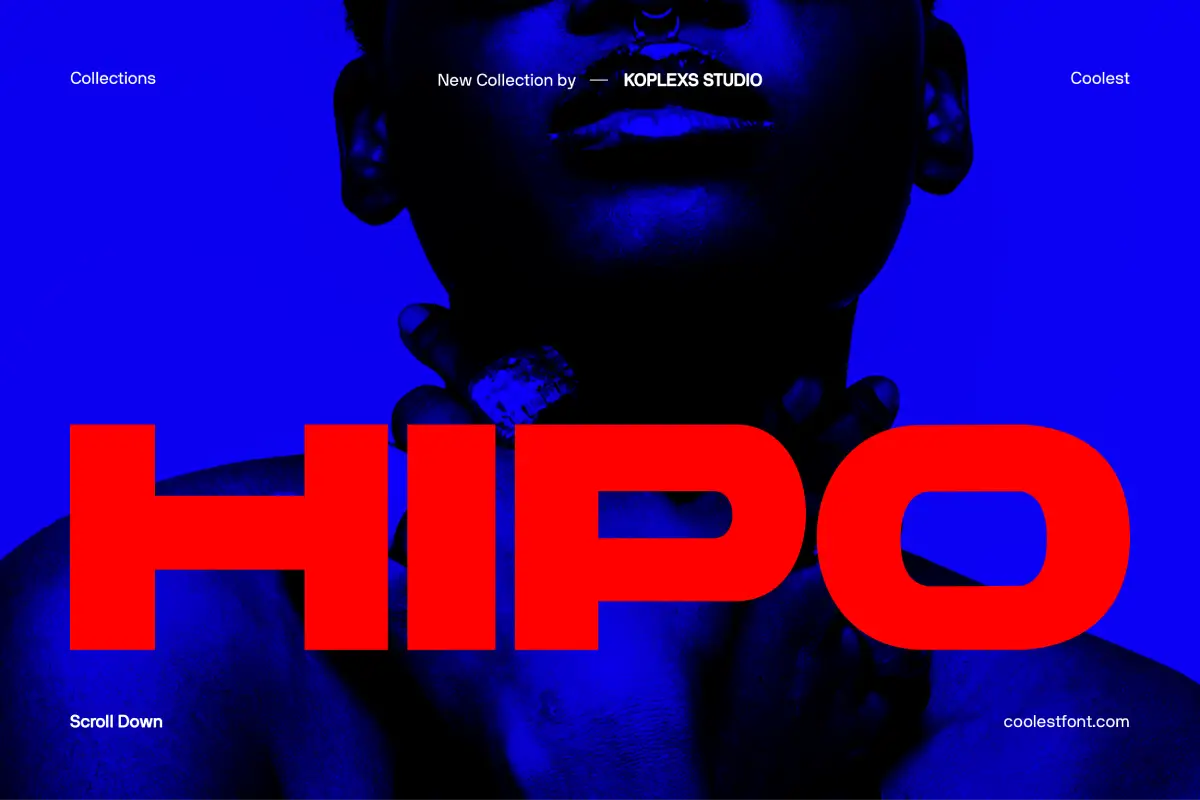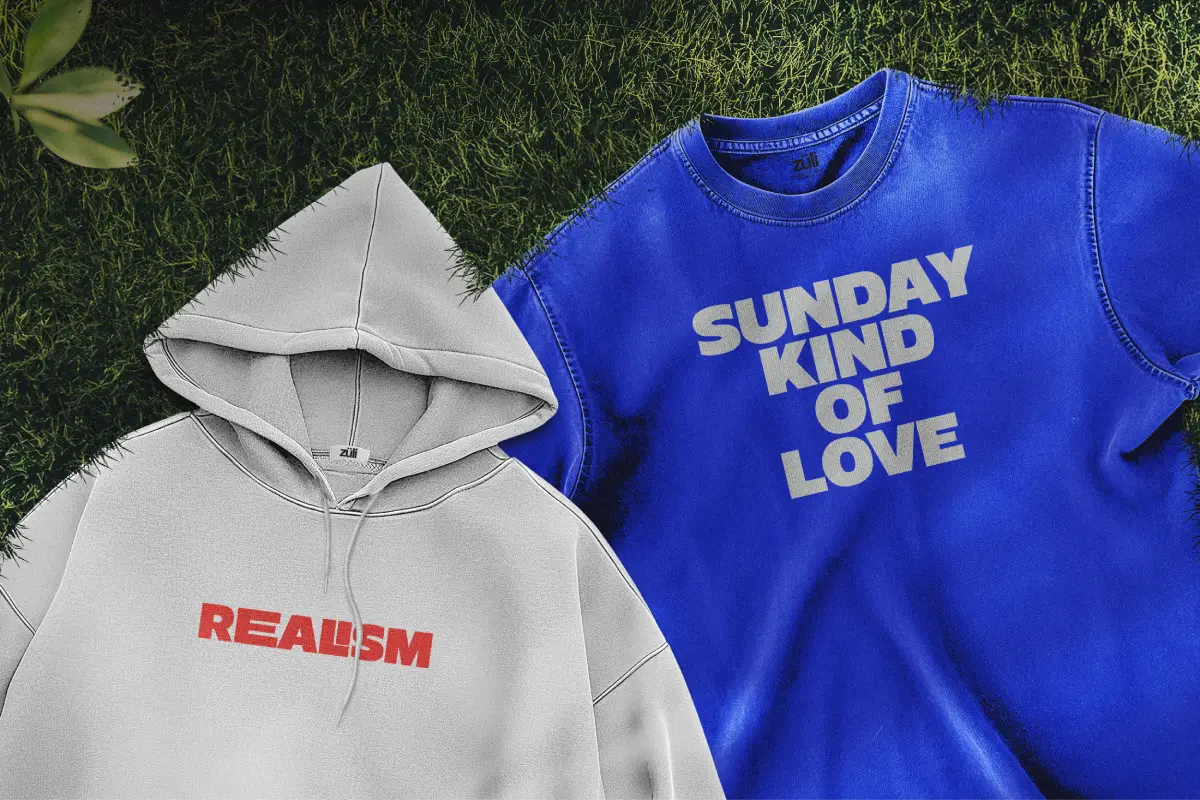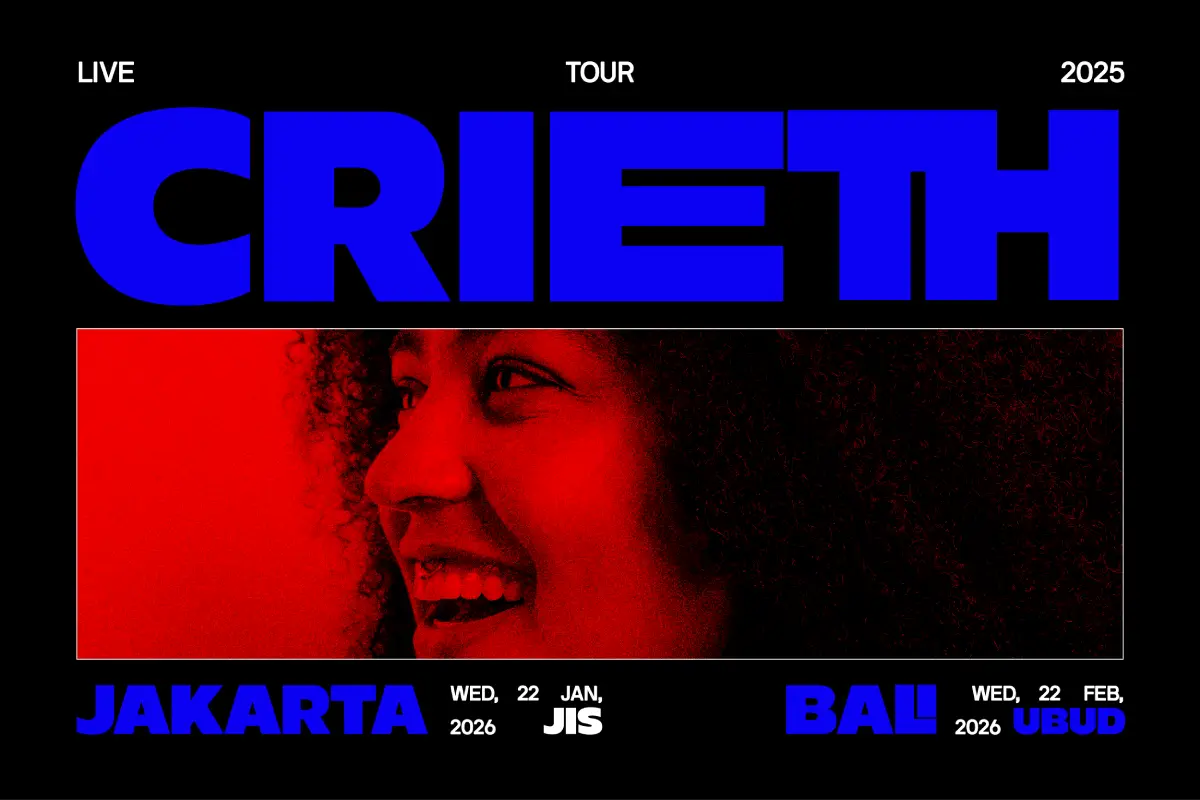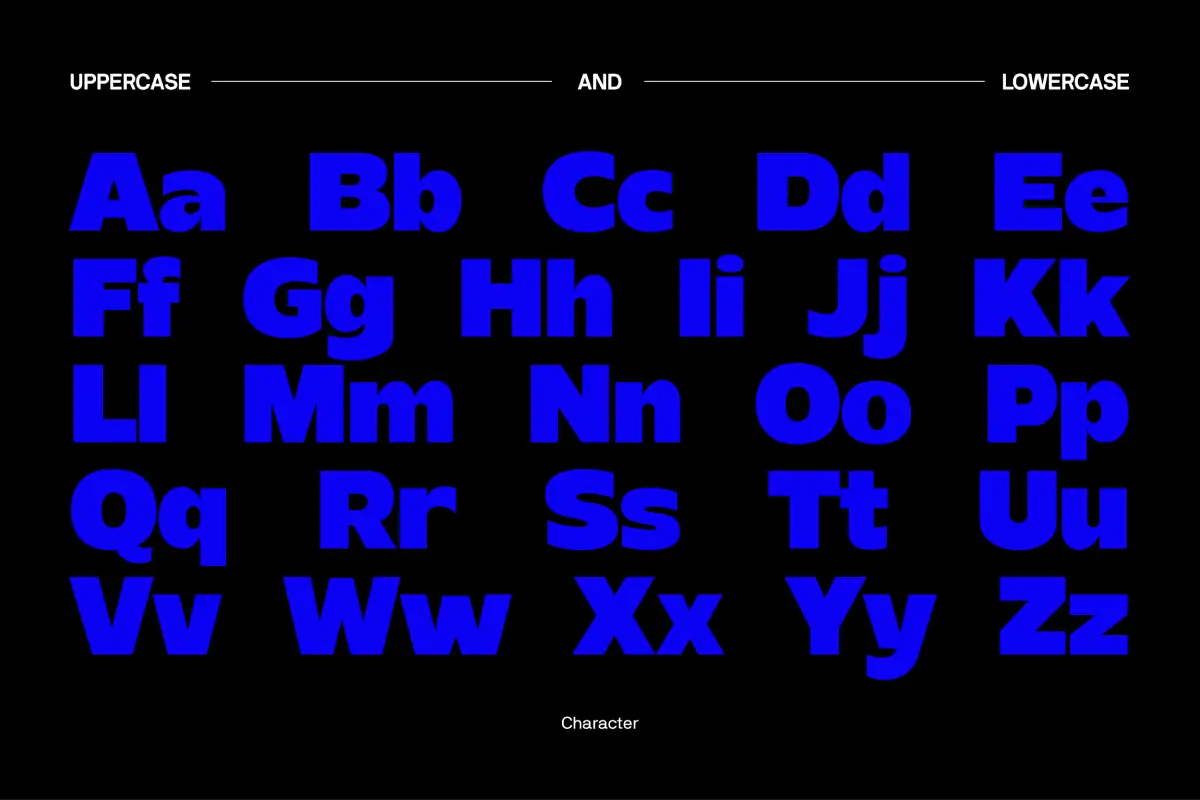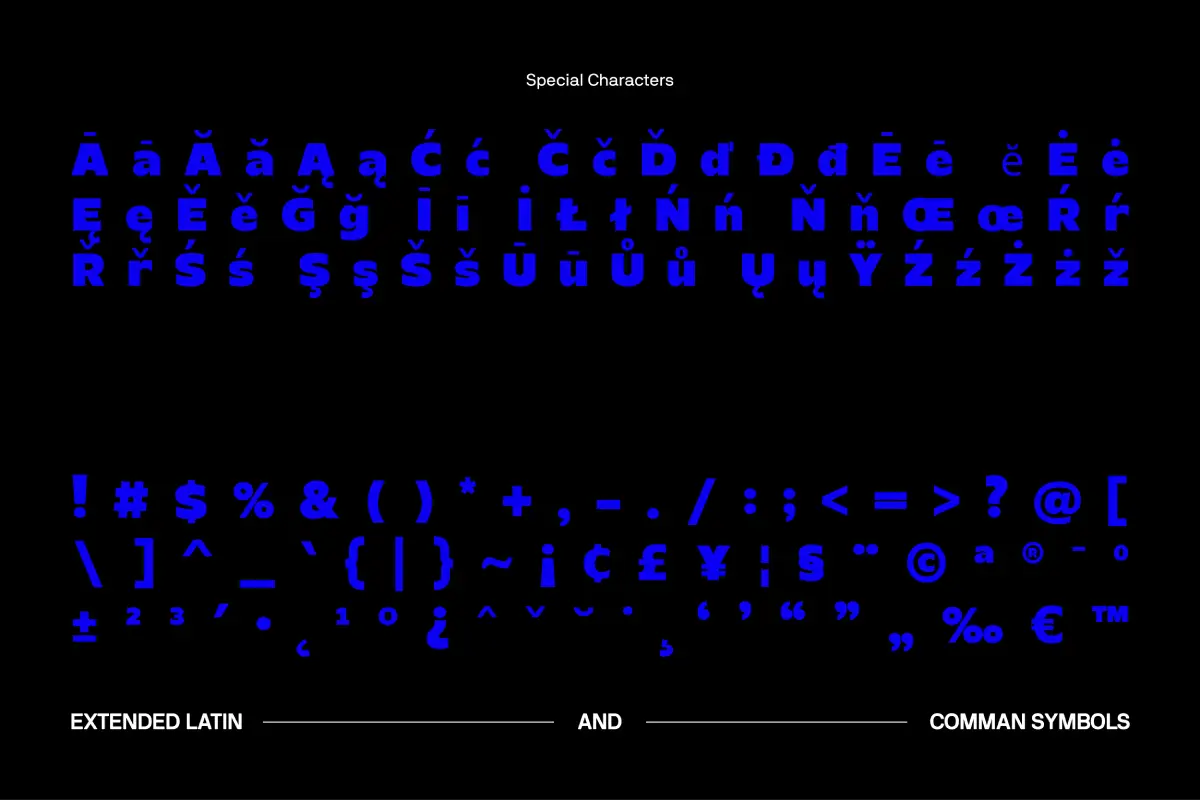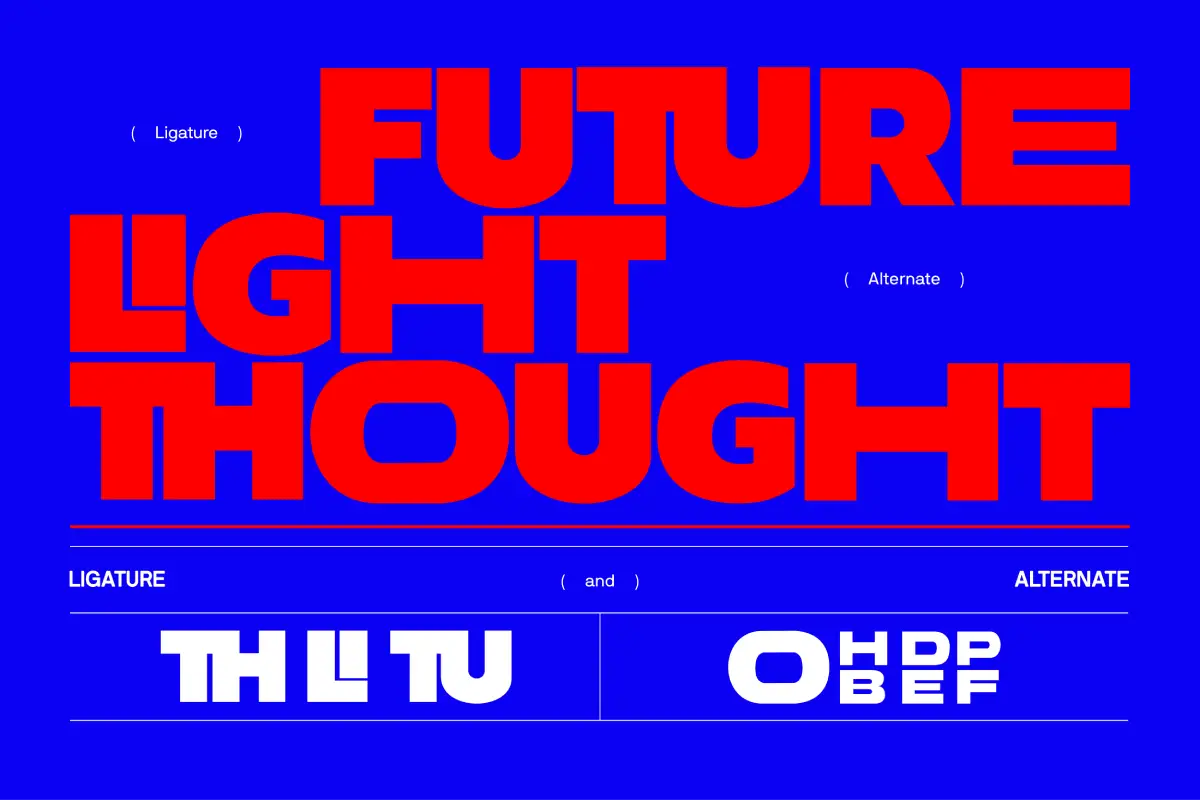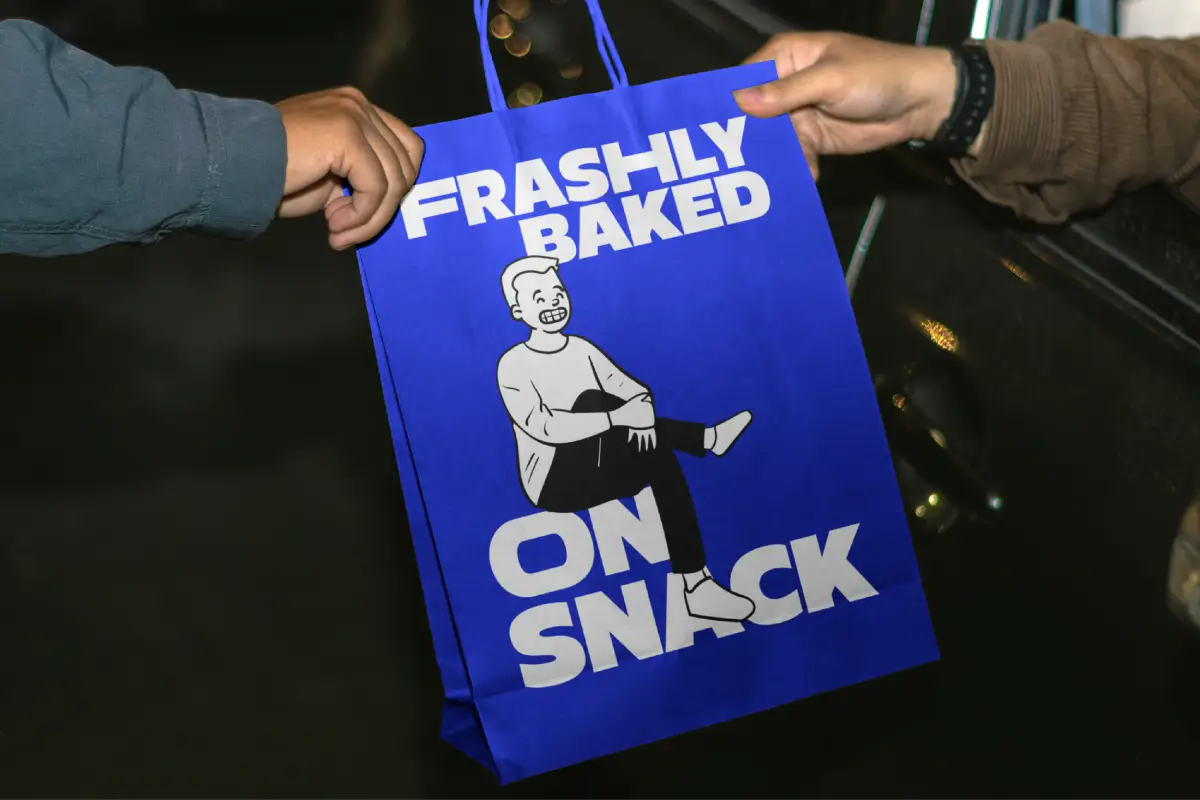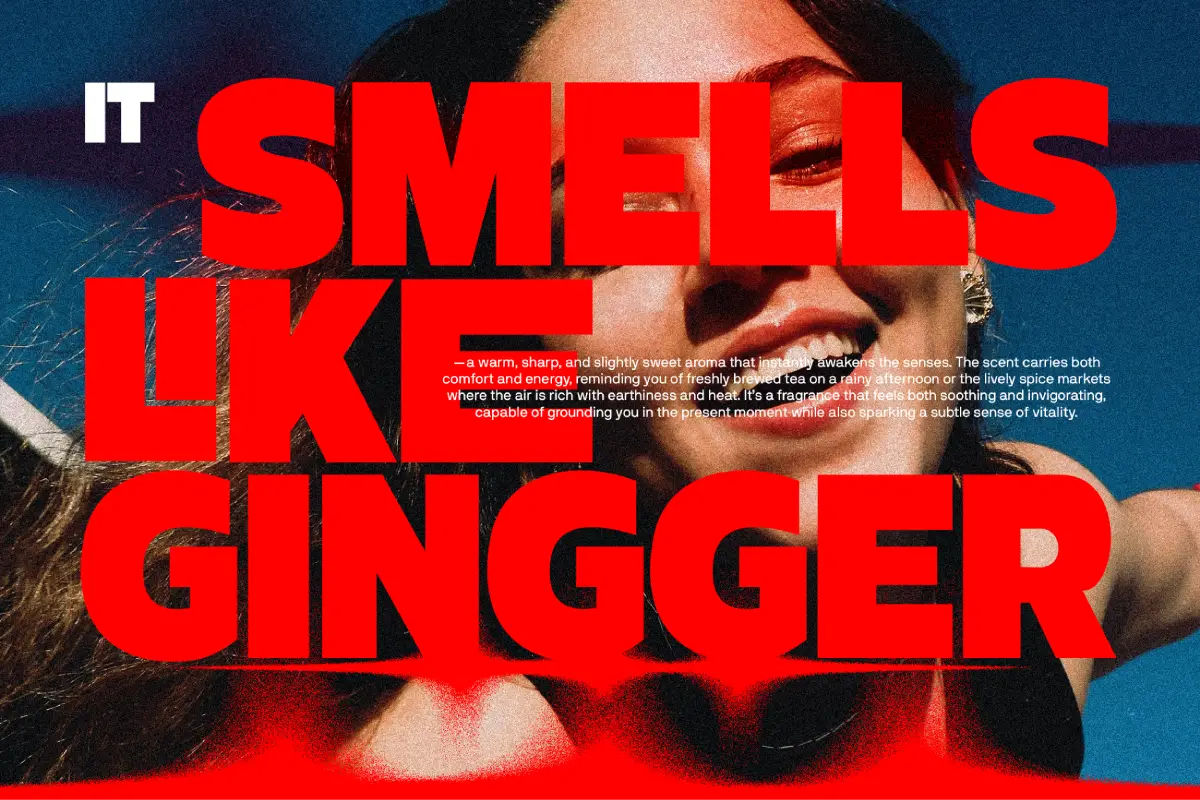
Hipo Font – Bold Sans Serif Branding Font
Hipo Font is a bold sans serif font made for impactful design. With its strong shapes and versatile style, it’s the perfect branding font for modern projects. As part of the coolest fonts collection, Hipo balances aesthetics and function, working as both an elegant font and a luxury font. Ideal for logos, packaging, editorial layouts, and digital campaigns, this cool font ensures your work looks bold, modern, and unforgettable. Featuring uppercase, lowercase, extended Latin, and special characters, Hipo is the perfect font to elevate every project with clarity and confidence.
Hipo – Modern Bold Font for Logos & Branding
Introducing Hipo Font – a bold font that instantly grabs attention with its striking form. Designed as a sans serif font with strong curves and confident shapes, Hipo is the branding font every modern creator needs.
As part of today’s modern fonts, Hipo brings together style and function. Its geometric design reflects the energy of aesthetic fonts, while maintaining a clean and versatile structure. This cool font works equally well as a logo font or as display typography for editorial layouts, fashion branding, and digital campaigns.
Hipo Font elevates design with its elegant font details and luxury font presence. Perfect for bold headlines, packaging, merchandise, or social media content, it adds authority and style without losing clarity. It’s one of the coolest fonts available, built to give your project a timeless yet contemporary look.
🌟HIPO Font Features :
• Bold uppercase & lowercase
• Extended Latin support & special characters
• Strong sans serif font structure
• Perfect font for logos, branding, and packaging
• Works for print, digital, and merchandise
🏆 HIPO Font Perfect For :
• Bold logo font and identity design
• Modern branding projects
• Posters, covers, and editorials
• Fashion, lifestyle, and product packaging
• Social media and campaign design